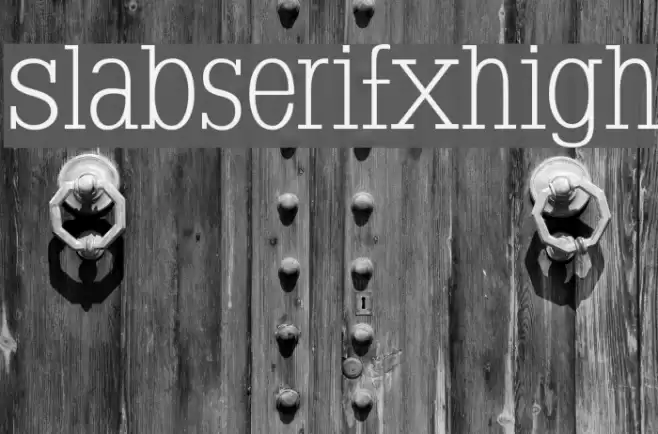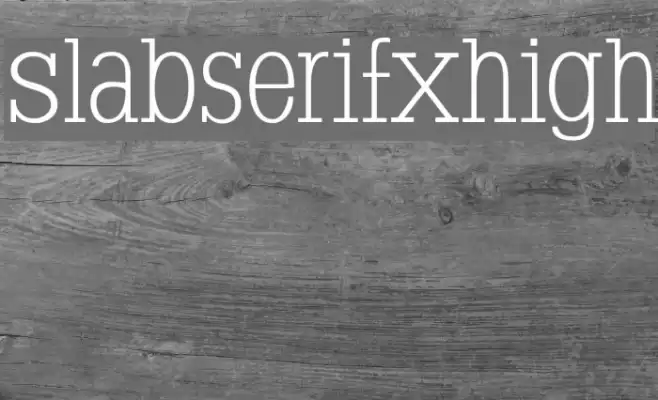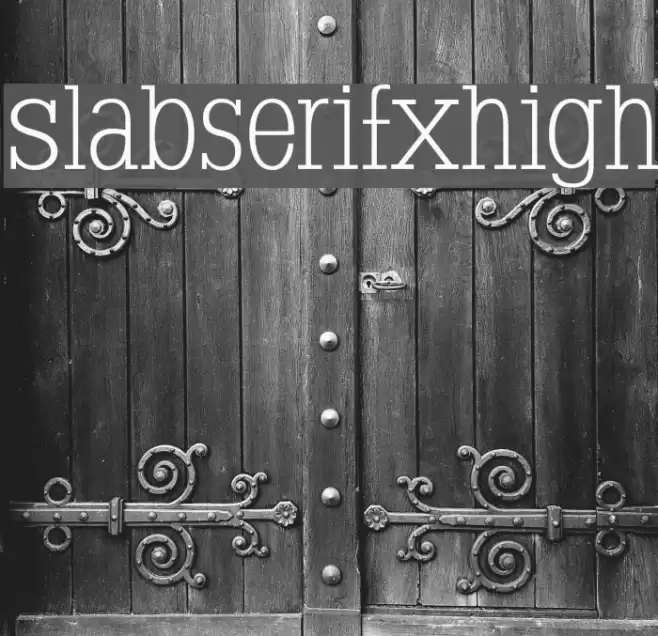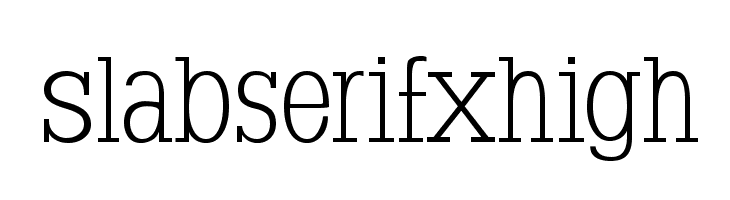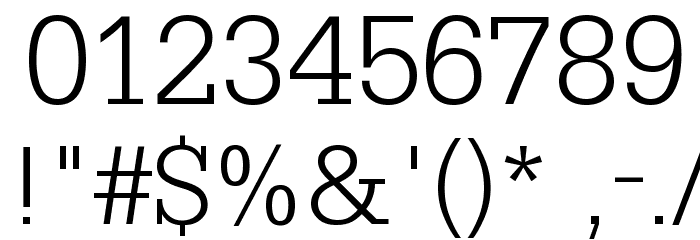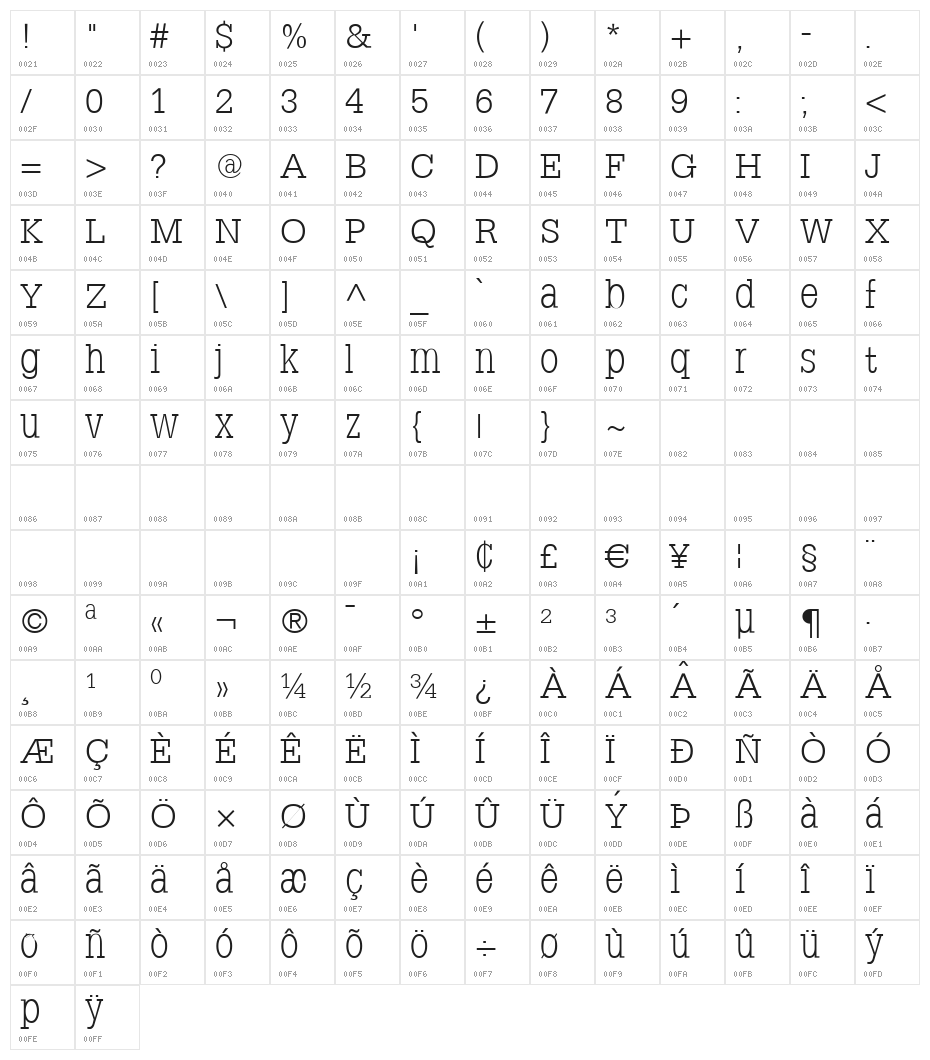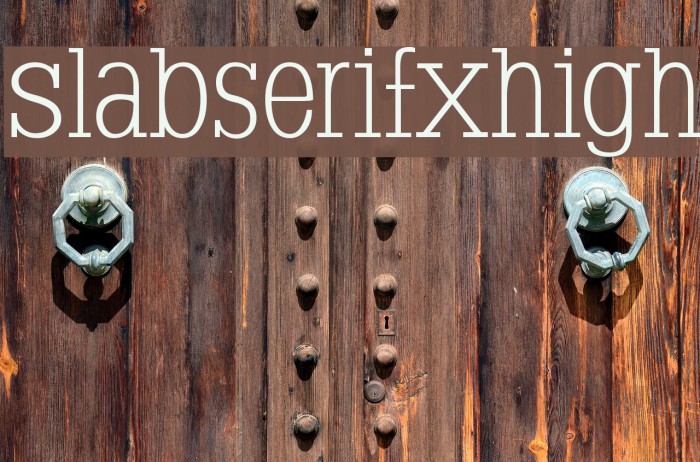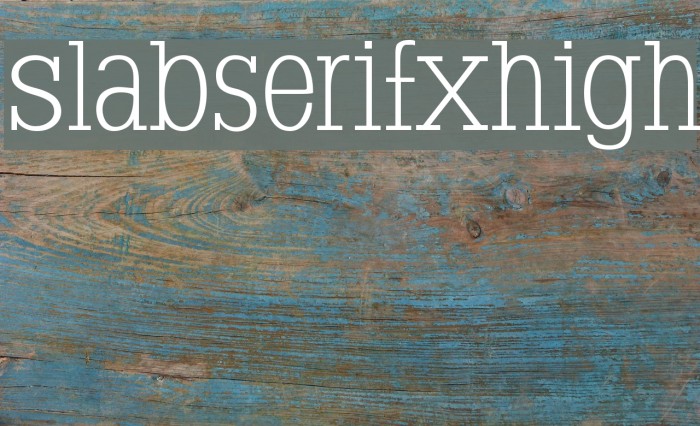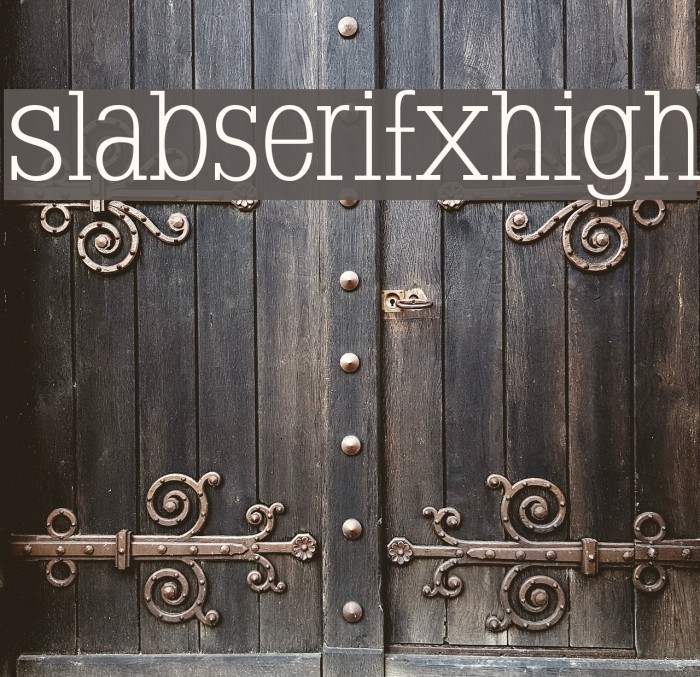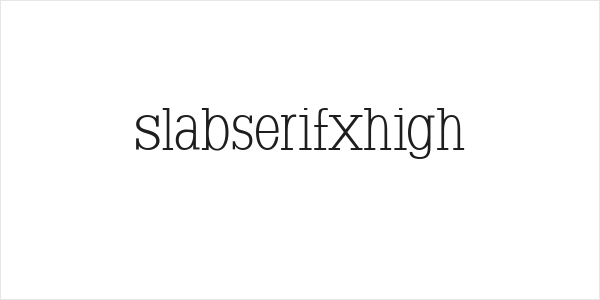
SlabserifXhigh Font
SlabserifXhigh Description
This font exhibits a classic slab serif style with strong, rectangular serifs that provide a robust and authoritative appearance. The characters are well-defined with a consistent stroke width, offering a balanced and structured look. The uppercase letters are bold and commanding, while the lowercase letters maintain a harmonious flow with slightly rounded edges. The numerals are clear and easily distinguishable, making them suitable for various applications. Special characters are designed with precision, ensuring readability and aesthetic appeal. Overall, this font combines traditional serif elements with a modern twist, making it versatile for both formal and creative uses.
A classic slab serif font with strong, rectangular serifs and consistent stroke width from Uncategorized fonts.
- Proposed Projects: Ideal for editorial design, book covers, branding, and signage where a strong, authoritative presence is desired.
- Overall Style: Classic